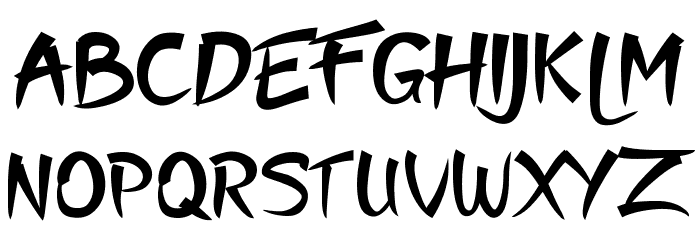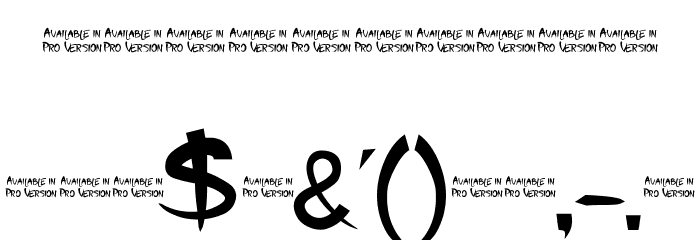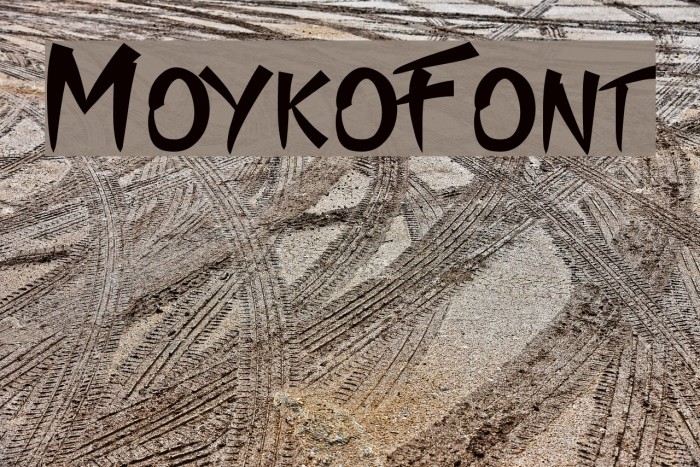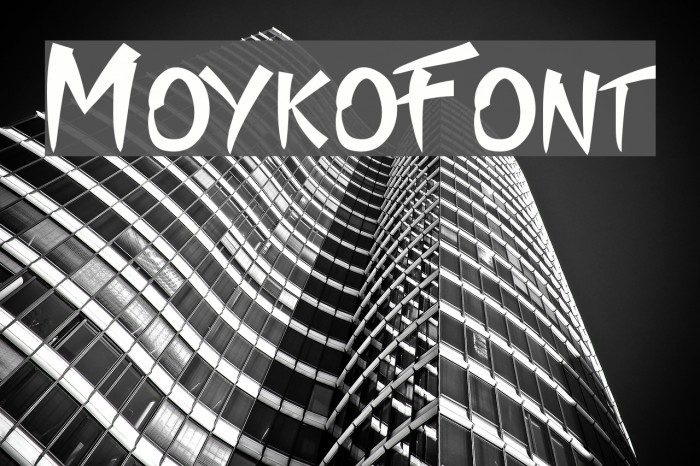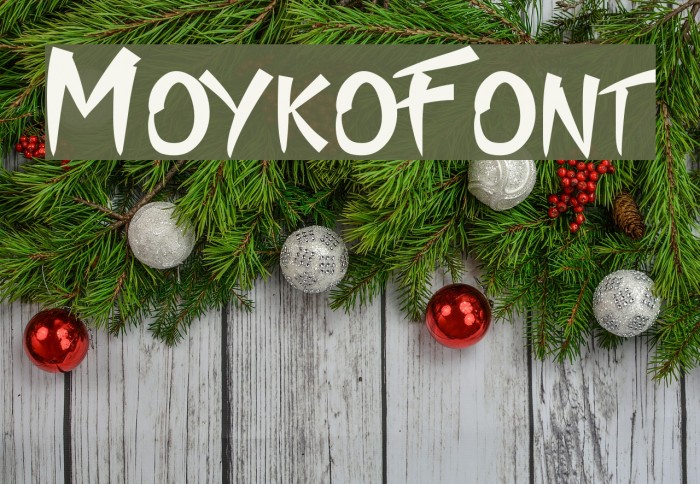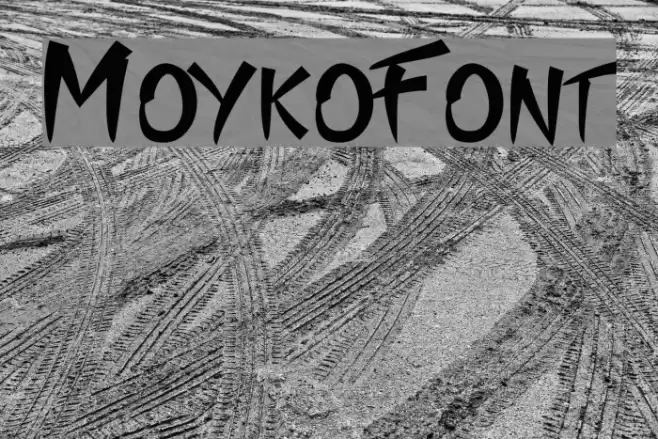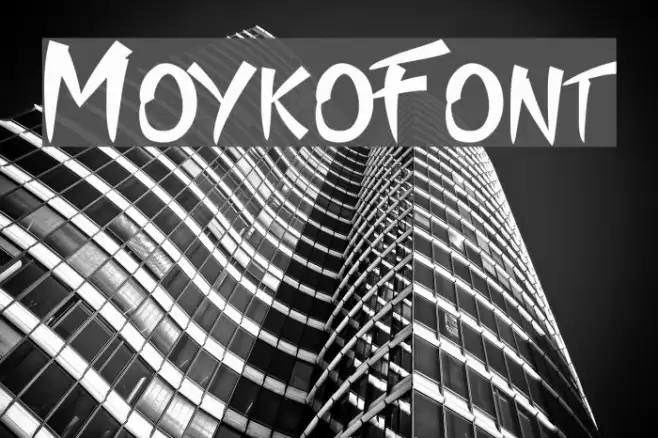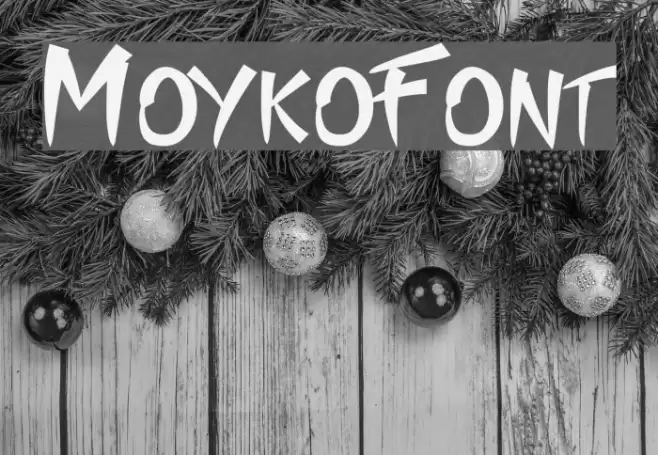
Moyko Font
This font features a bold and dynamic style with a hand-drawn appearance. The uppercase letters are characterized by sharp, angular strokes and a slight slant, giving them a sense of motion and energy. The lowercase letters maintain this energetic feel, with consistent stroke widths and a playful, informal look. The numerals and special characters follow the same design principles, ensuring uniformity across the font. This font's unique style makes it stand out, ideal for projects that require a touch of creativity and flair.
A bold, dynamic font with a hand-drawn, energetic style.
- Proposed Projects: Ideal for posters, branding, logos, and creative projects that require a bold and artistic touch.